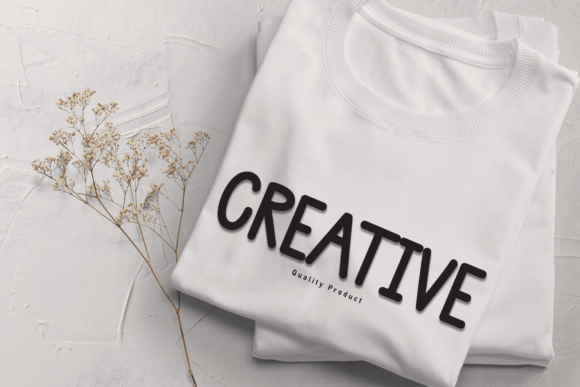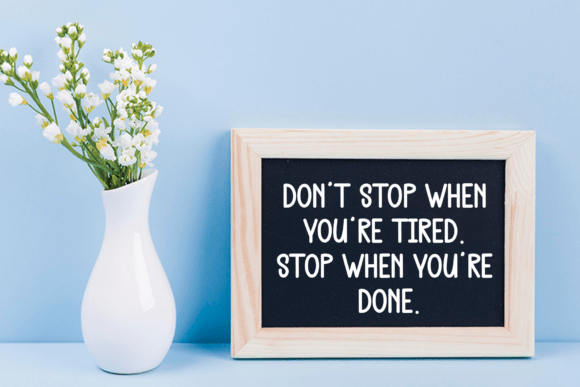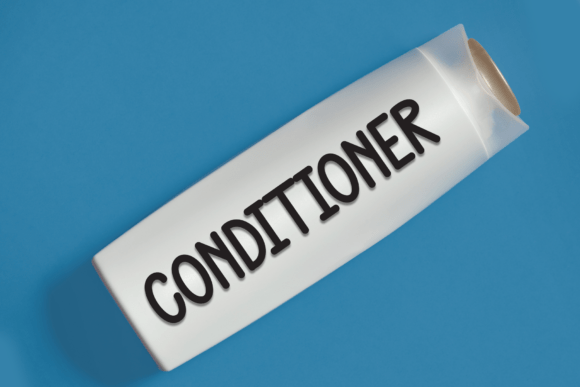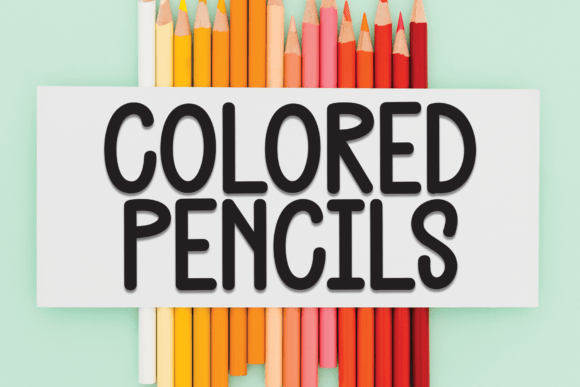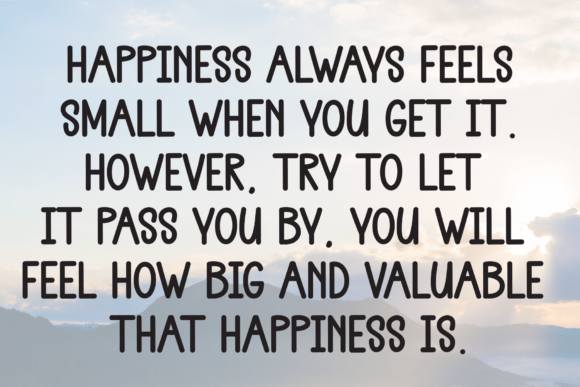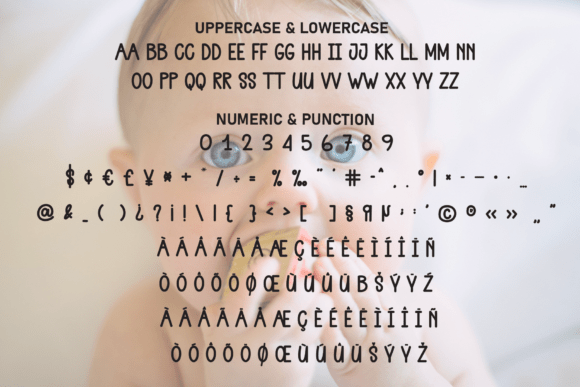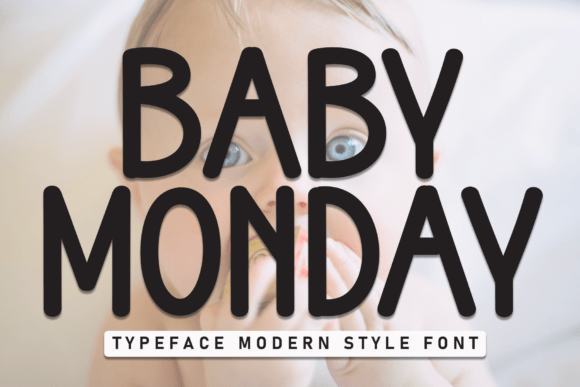
Baby Monday Font: The Perfect Addition to Your Design Collection
Are you tired of using the same old fonts in your design projects? Look no further than the Baby Monday Font, a charmingly sweet handwritten display font that radiates friendliness with every curve and line. This delightful font is perfect for designers and crafters looking to add a touch of whimsical amusement to their work.
What Makes Baby Monday Font So Special?
The Baby Monday Font is a one-of-a-kind font that boasts a range of delightful characteristics that set it apart from other fonts. Its delightfully cute and playful features make it perfect for creating enchanting wedding invitations, heartfelt cards, or any project seeking an injection of joviality. With this font, you can effortlessly infuse every piece with a playful, fun vibe that will leave a lasting impression on your audience.
Key Features of Baby Monday Font
- Handwritten Display Font: The Baby Monday Font is a beautifully crafted handwritten display font that exudes warmth and friendliness.
- Playful and Whimsical: This font is perfect for designers and crafters looking to add a touch of playfulness and whimsy to their work.
- Cute and Delightful: The Baby Monday Font features a range of cute and delightful characteristics that make it perfect for creating enchanting wedding invitations, heartfelt cards, and more.
- Easy to Read: Despite its playful nature, the Baby Monday Font is easy to read, making it perfect for use in a range of design projects.
Perfect for a Range of Design Projects
The Baby Monday Font is a versatile font that can be used in a range of design projects, including:
- Wedding Invitations: Create enchanting wedding invitations that will set the tone for a magical and memorable day.
- Heartfelt Cards: Add a touch of whimsy and playfulness to your heartfelt cards, making them truly special and unique.
- Social Media Graphics: Use the Baby Monday Font to create eye-catching social media graphics that will help you stand out from the crowd.
- Branding and Packaging: Add a touch of personality to your branding and packaging with this delightful font.
Why Choose Baby Monday Font?
So why choose the Baby Monday Font over other fonts? Here are just a few reasons:
- Unique and Eye-Catching: This font is truly one-of-a-kind, making it perfect for designers and crafters looking to create unique and eye-catching designs.
In conclusion, the Baby Monday Font is a charmingly sweet handwritten display font that radiates friendliness with every curve and line. With its delightfully cute and playful characteristics, this font adds a touch of whimsical amusement to your design work. Perfect for creating enchanting wedding invitations, heartfelt cards, or any project seeking an injection of joviality, this font effortlessly infuses every piece with a playful, fun vibe. So why wait? Add the Baby Monday Font to your design collection today and start creating unique and eye-catching designs that will leave a lasting impression on your audience.